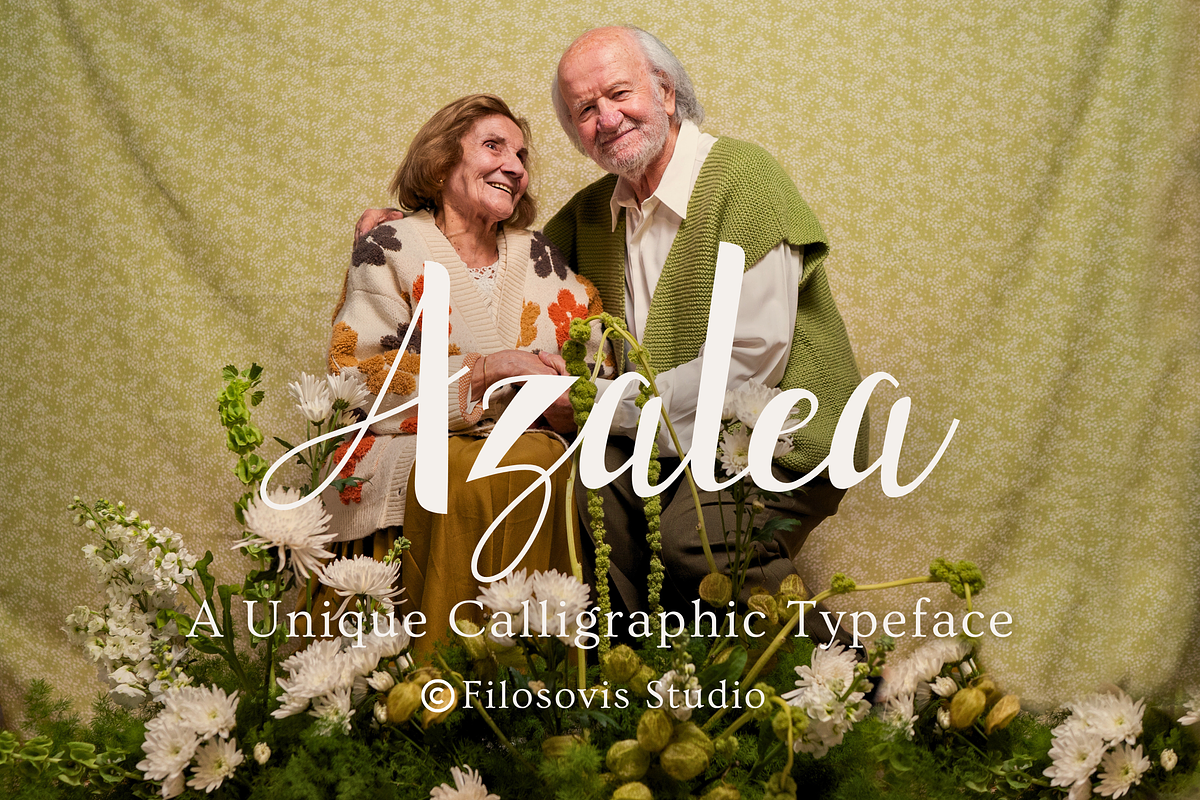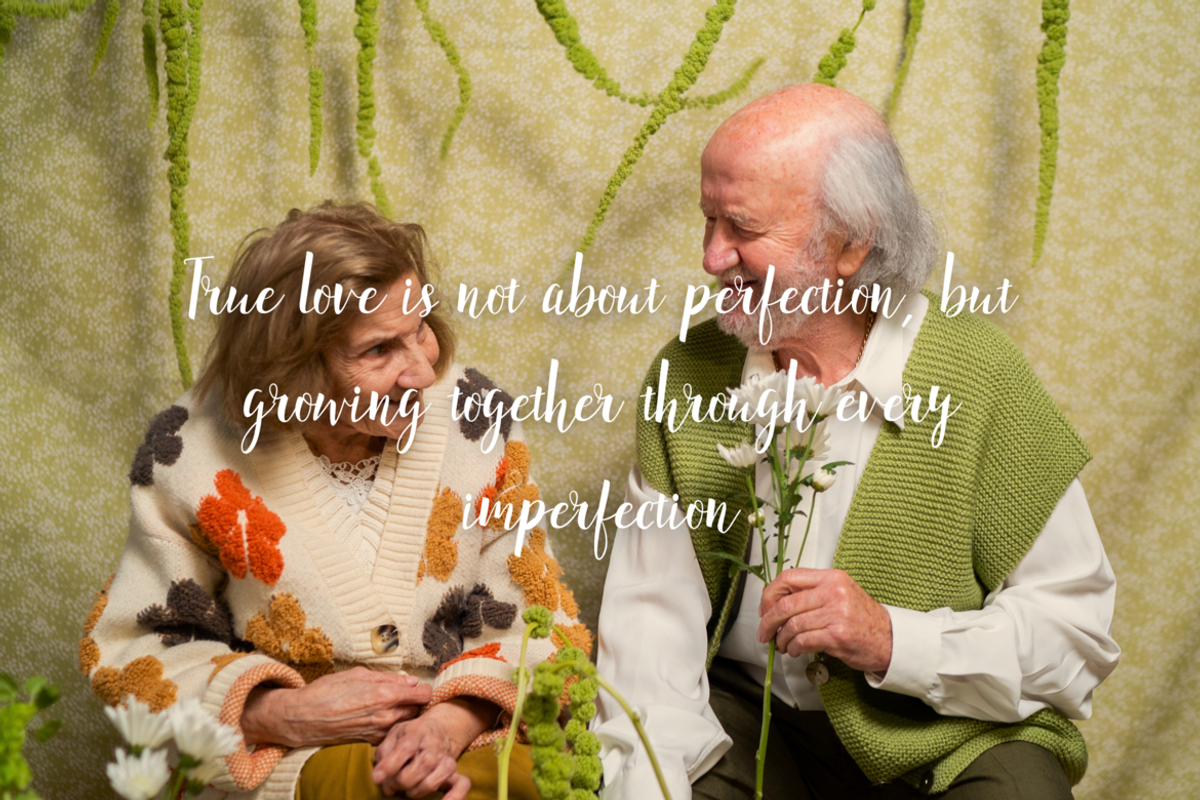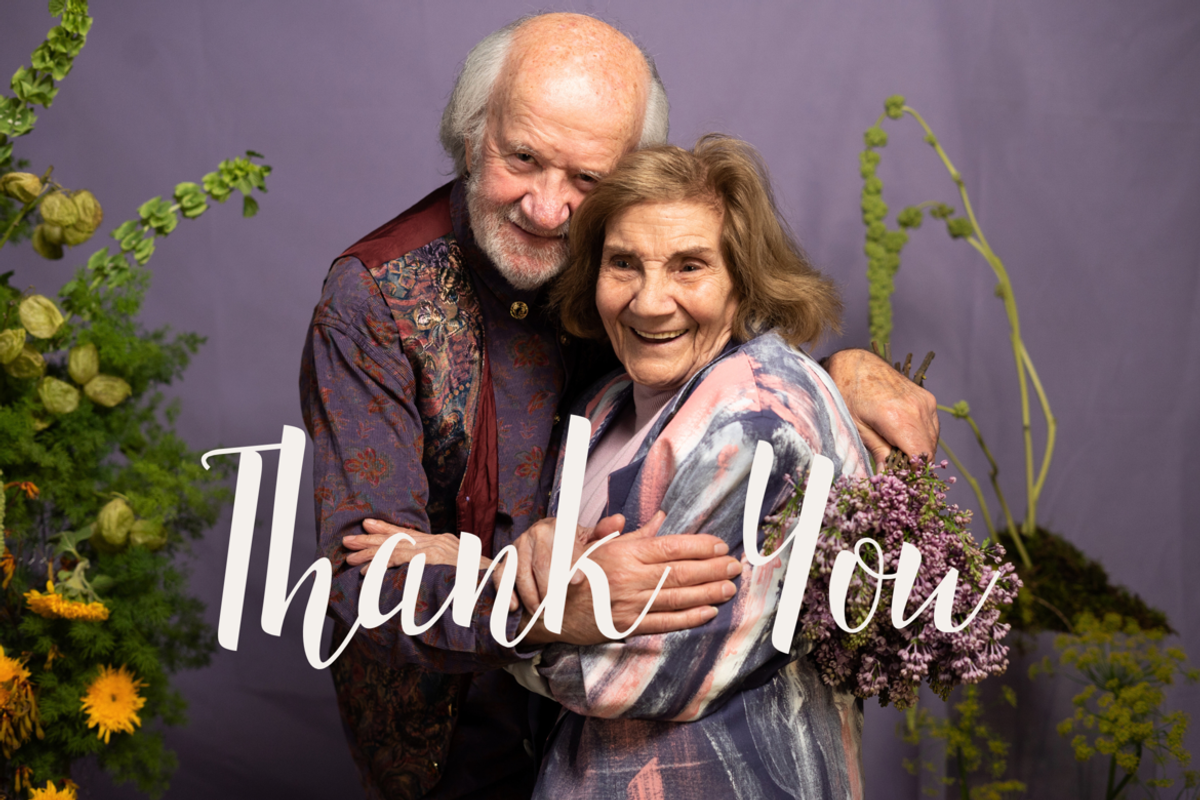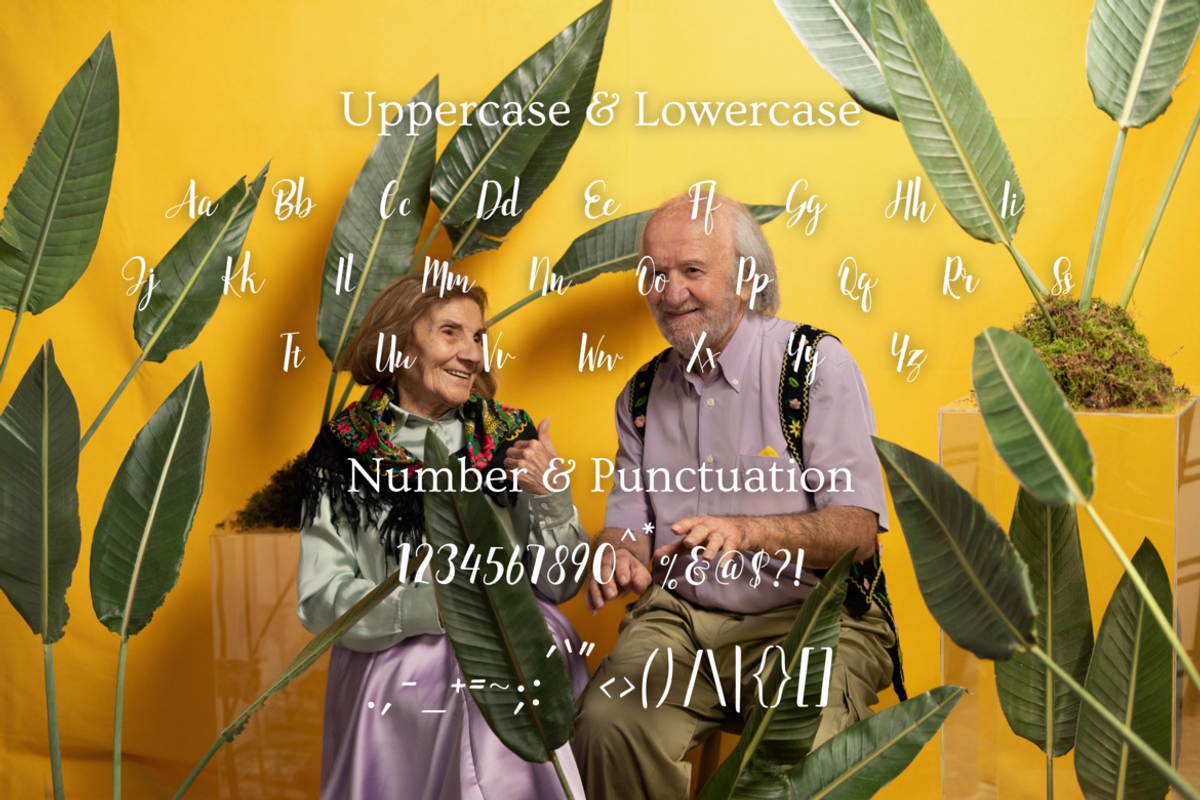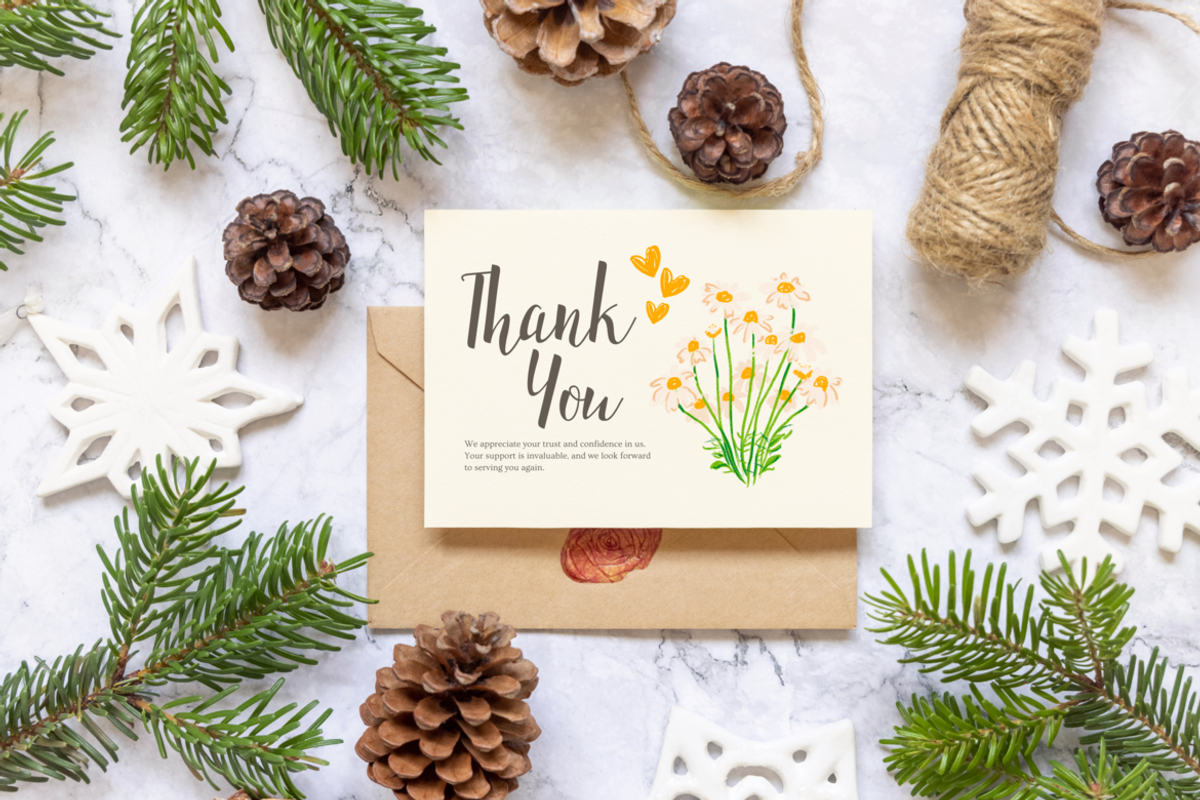
Azalea | Calligraphic Typeface
Introducing of our new product the name is Azalea Calligraphy Typeface. Azalea made by manual calligraphy into digital this Typeface is a romantic theme very good for logo, signature, poster, fashion, quote poster, flyer, landing page etc.